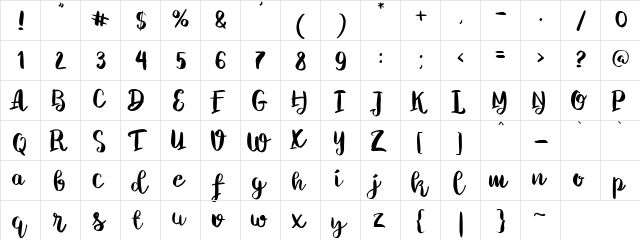
Chelsea Brush Script Regular
| Foundry | Debut Studio |
| Designer | Debut Studio |
Design Context for Chelsea Brush Script Typeface
Chelsea Brush Script flows with the natural rhythm of handwritten lettering, making it ideal for designs that call for warmth and personal expression.
Font Pairing: Combine Chelsea Brush Script with a simple geometric sans for maximum contrast — the tension between flowing curves and clean structure is a classic typographic pairing.
Pro Tip: Use Chelsea Brush Script for short runs of text — names, titles, or taglines. Extended body copy in script faces tires the eye quickly.